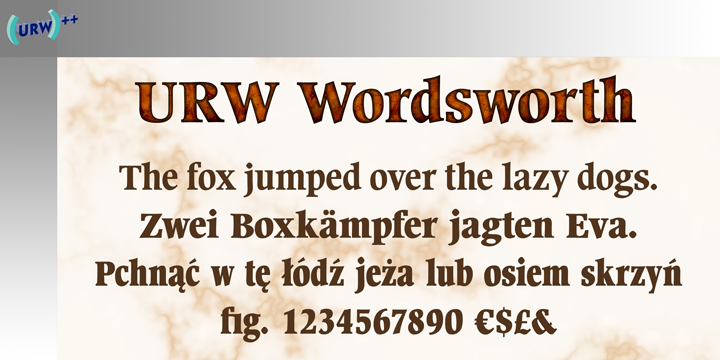
Wordsworth Font is perfect for literary publications, poetry books, academic journals, classical education materials, vintage book covers, intellectual branding, cultural institutions, philosophical texts, and any project requiring typography with romantic literary heritage and scholarly elegance.
What makes Wordsworth Font exciting is its poetic eloquence that captures the romantic spirit of English literature and the contemplative beauty of nature-inspired verse with refined letterforms that echo the golden age of poetry and literary expression. This distinguished typeface embodies the intellectual heritage of the Romantic movement with classical proportions and thoughtful details that reflect the depth and sensitivity of great literary works. The font's scholarly character and literary authenticity make it perfect for projects celebrating written word, academic excellence, and the timeless power of poetry.
The Wordsworth Font family includes regular and italic weights, featuring complete uppercase and lowercase alphabets, numerals, punctuation marks, and classical typographic elements. The font maintains consistent literary elegance throughout all weights while ensuring excellent readability for both contemplative headlines and flowing text applications in academic and literary contexts.
Whether you're designing for publishing houses, creating educational materials, or developing cultural branding with classical literary aesthetics, Wordsworth Font Free Download brings unmatched intellectual sophistication and poetic beauty to your projects. This remarkable typeface transforms ordinary text into eloquent expressions of thought and beauty that honor the finest traditions of English literature and scholarly communication. The font's classical character makes it ideal for universities, literary organizations, and cultural publications. Download this exceptional font today and bring the timeless elegance of romantic literature to your design projects with authentic scholarly sophistication and poetic grace.